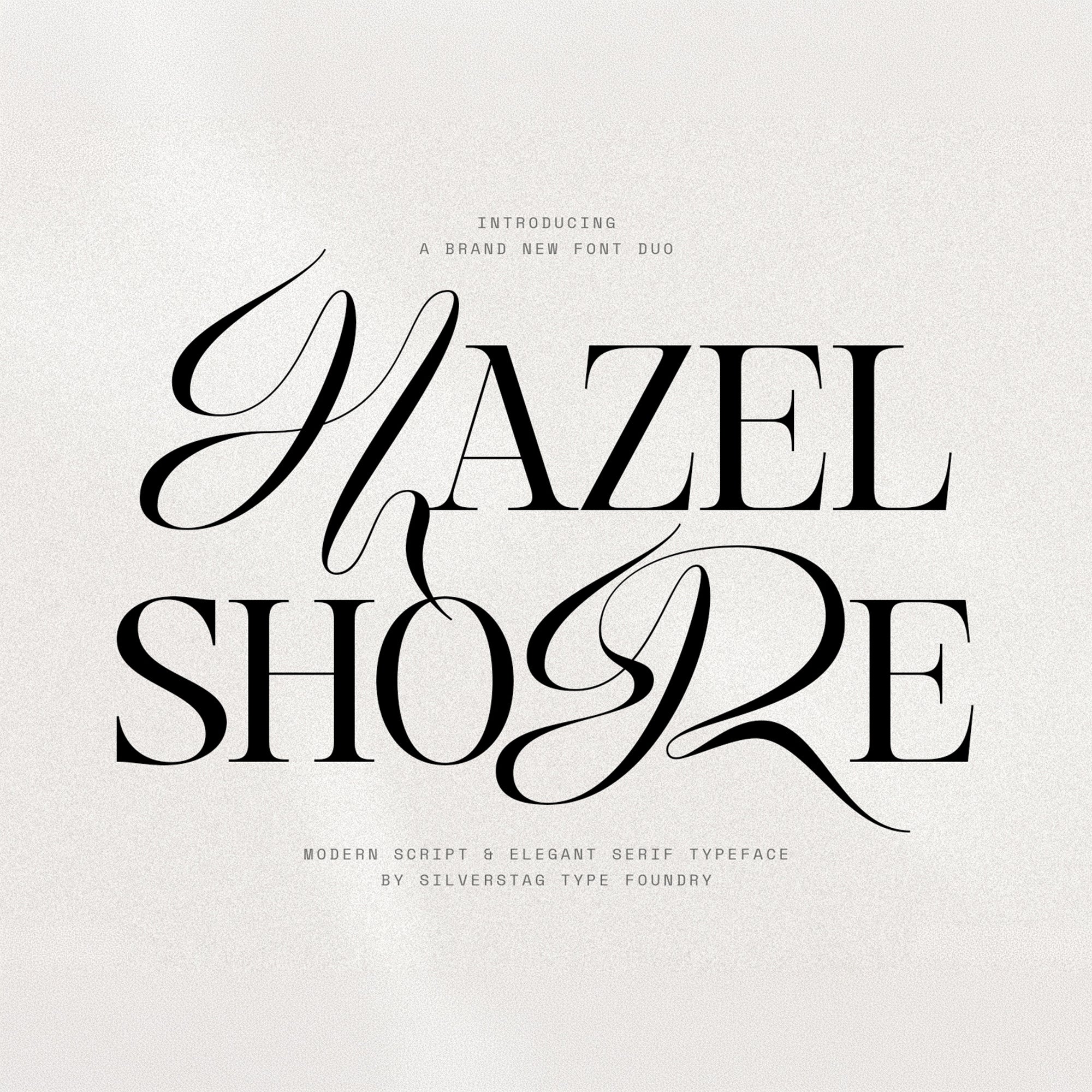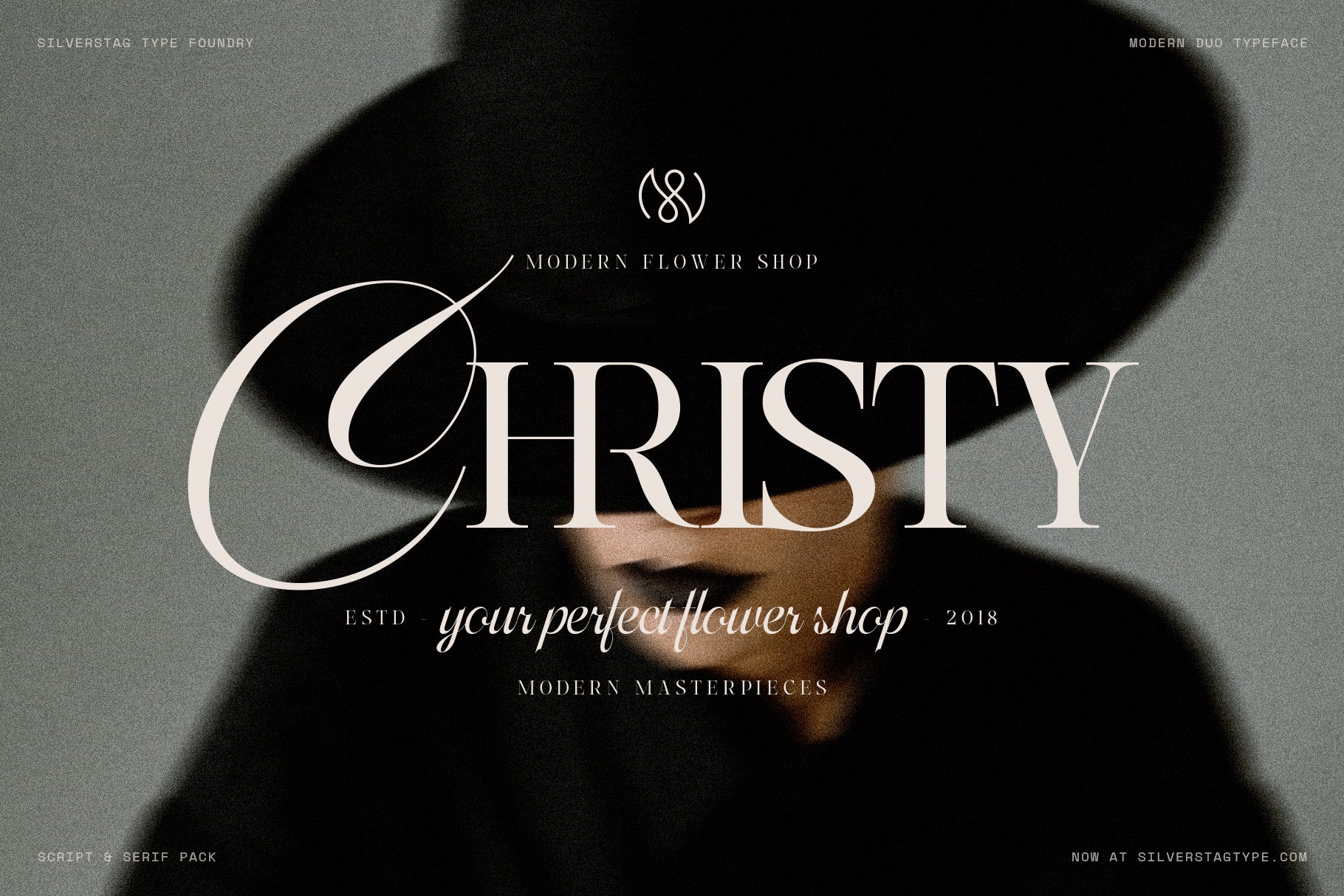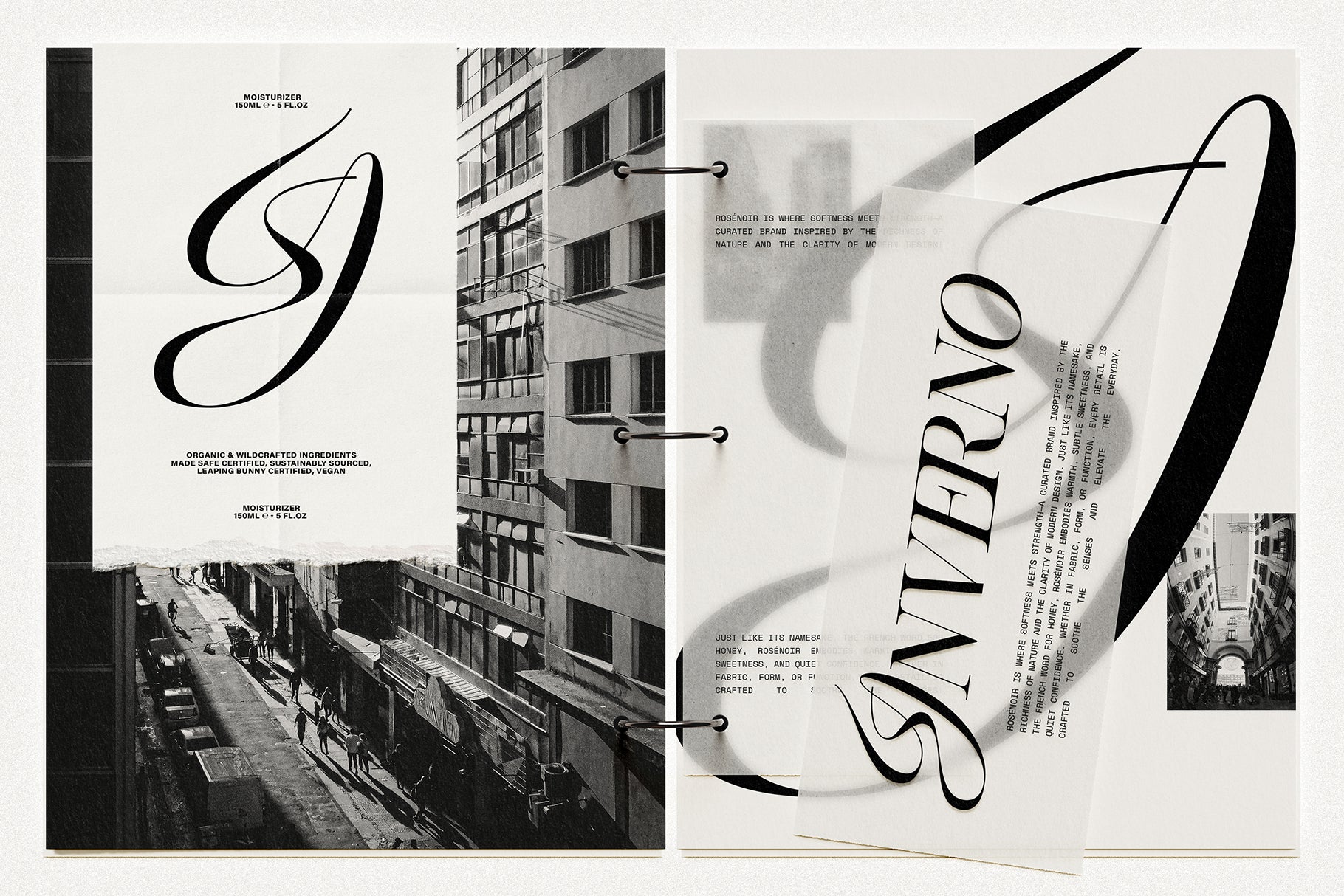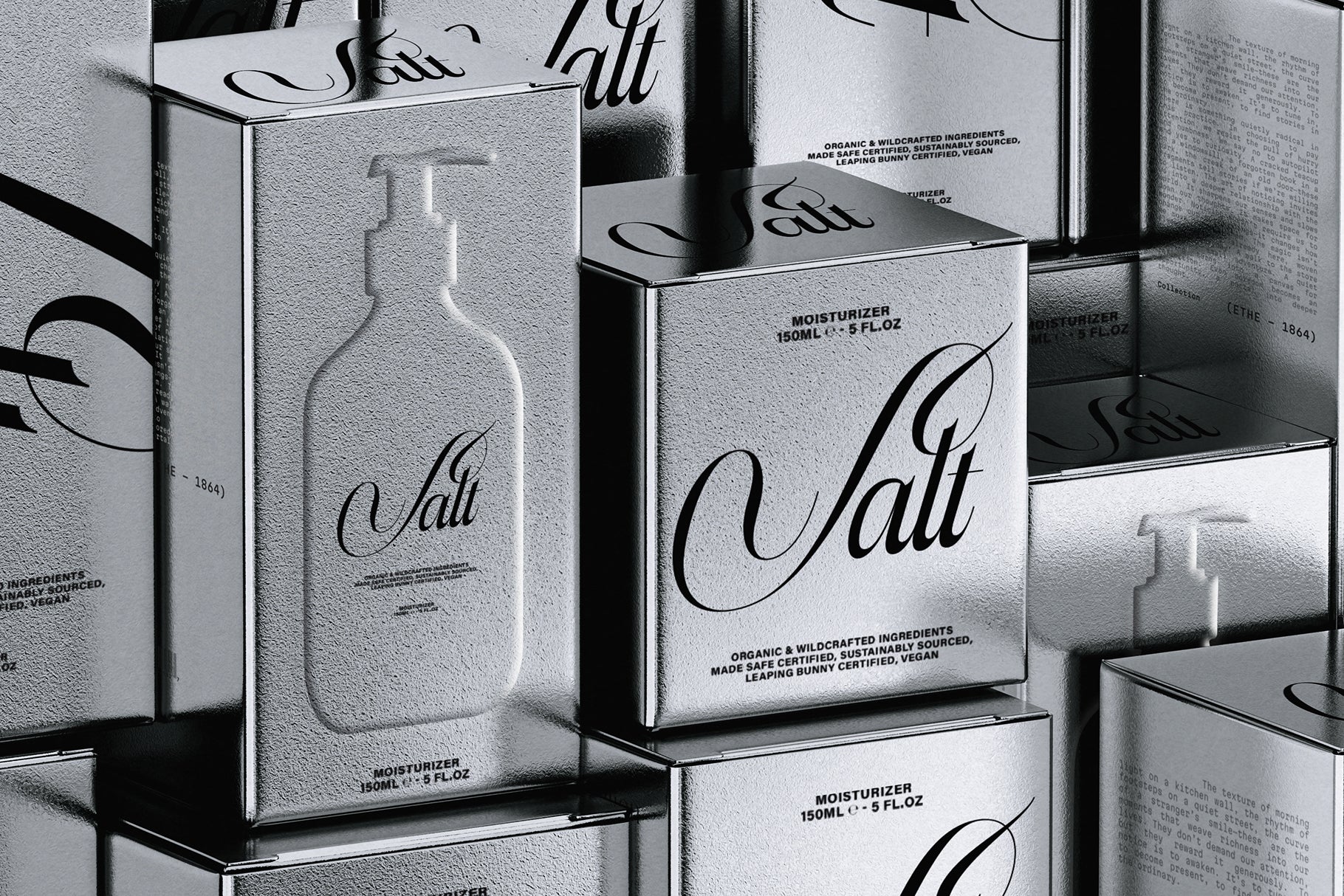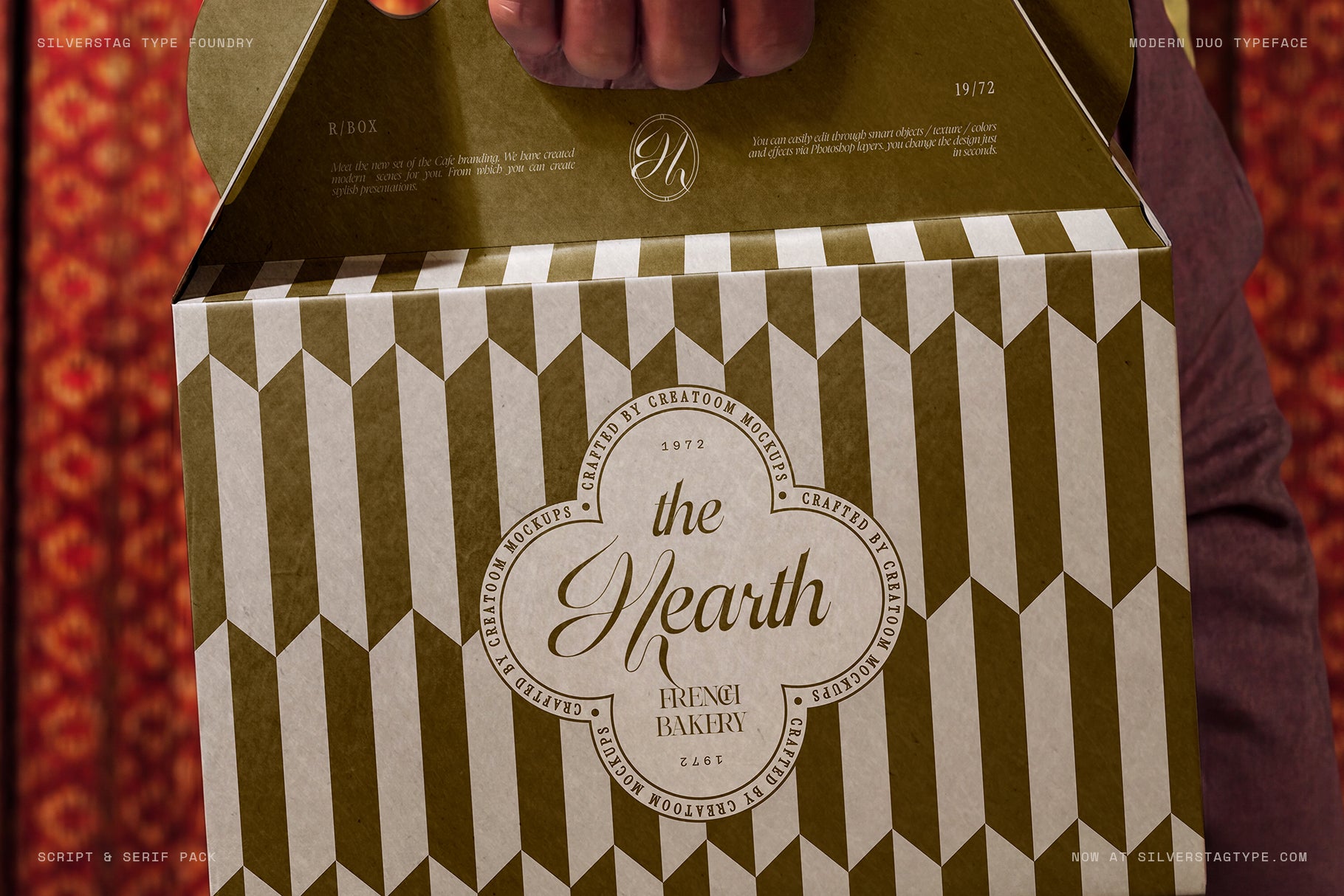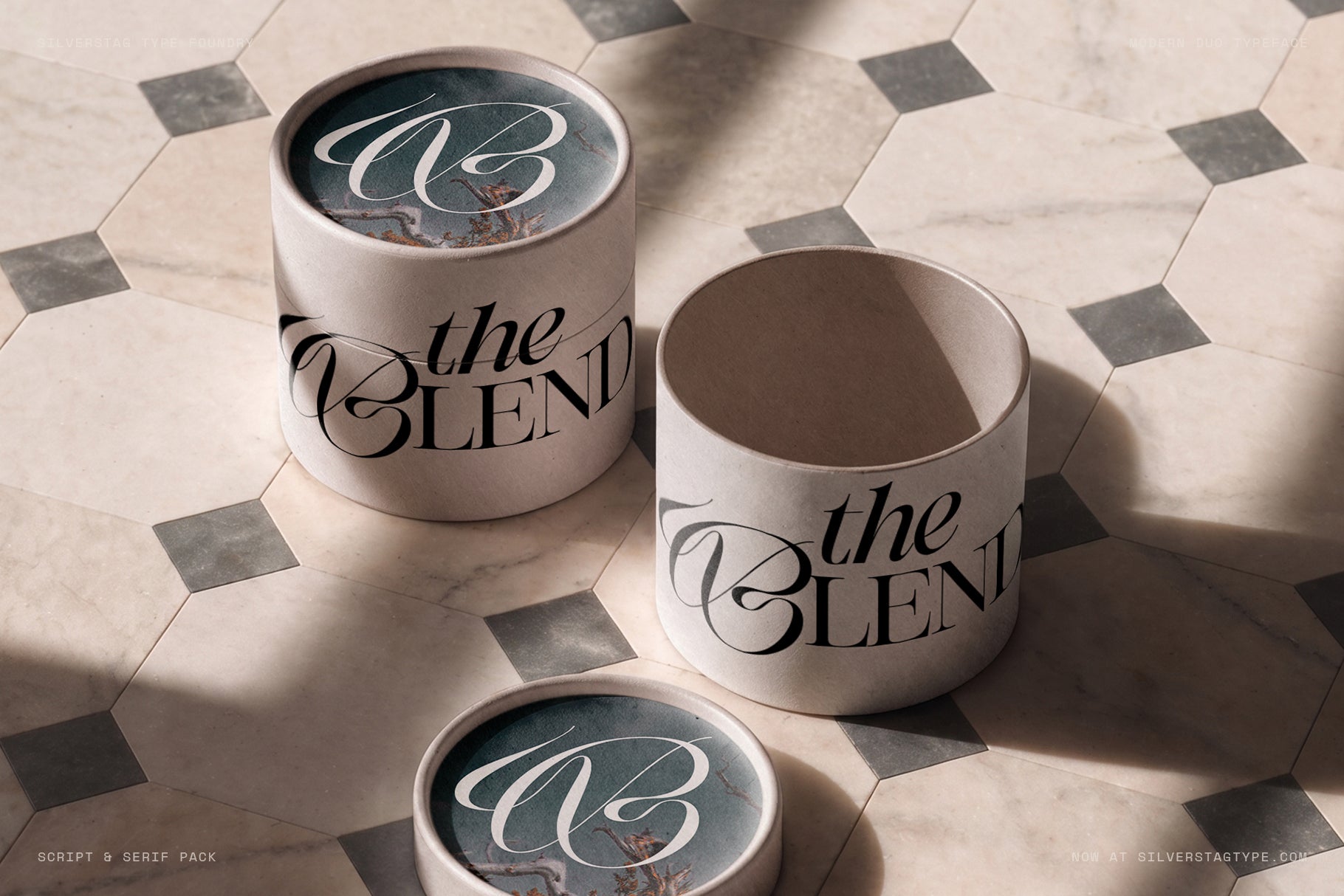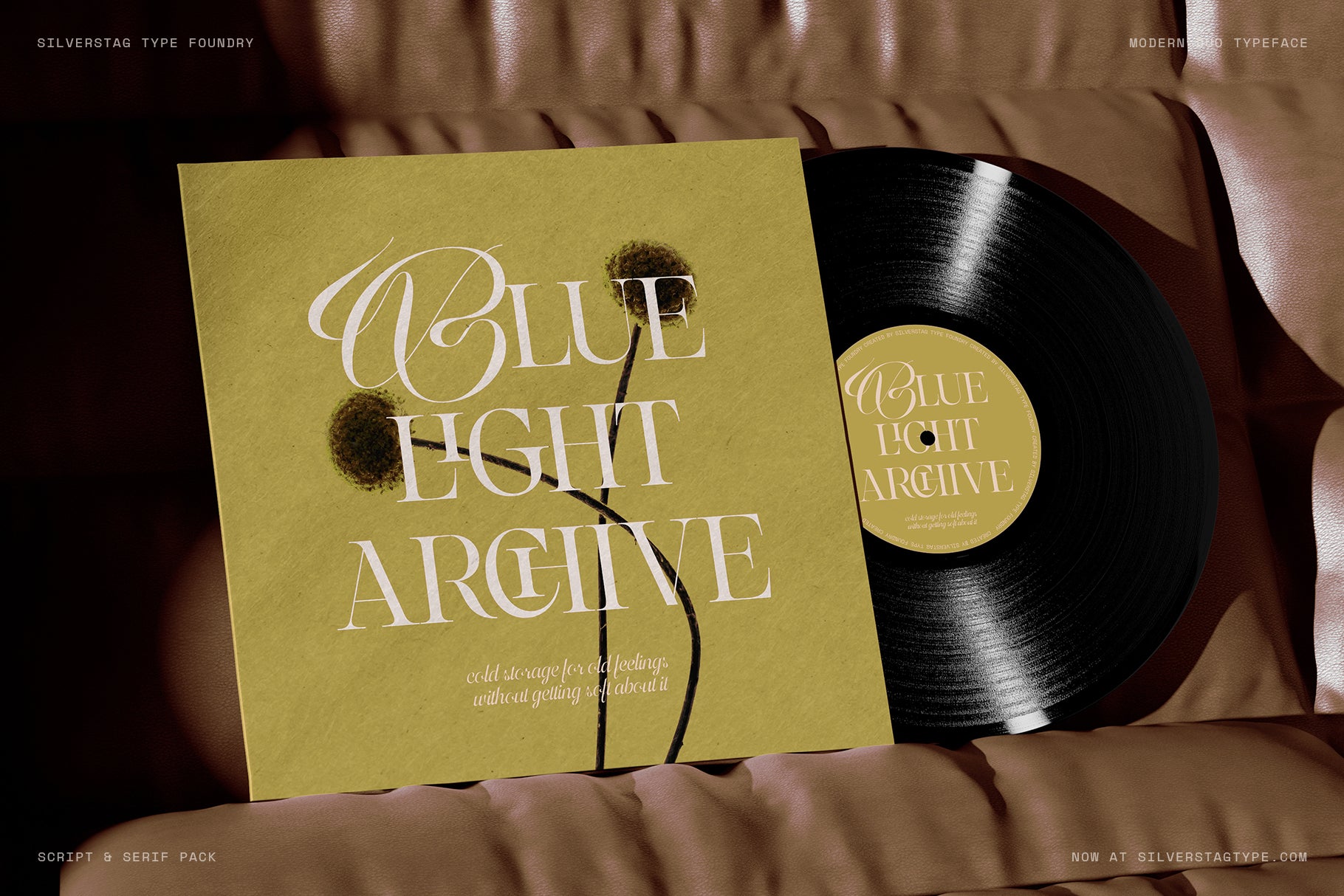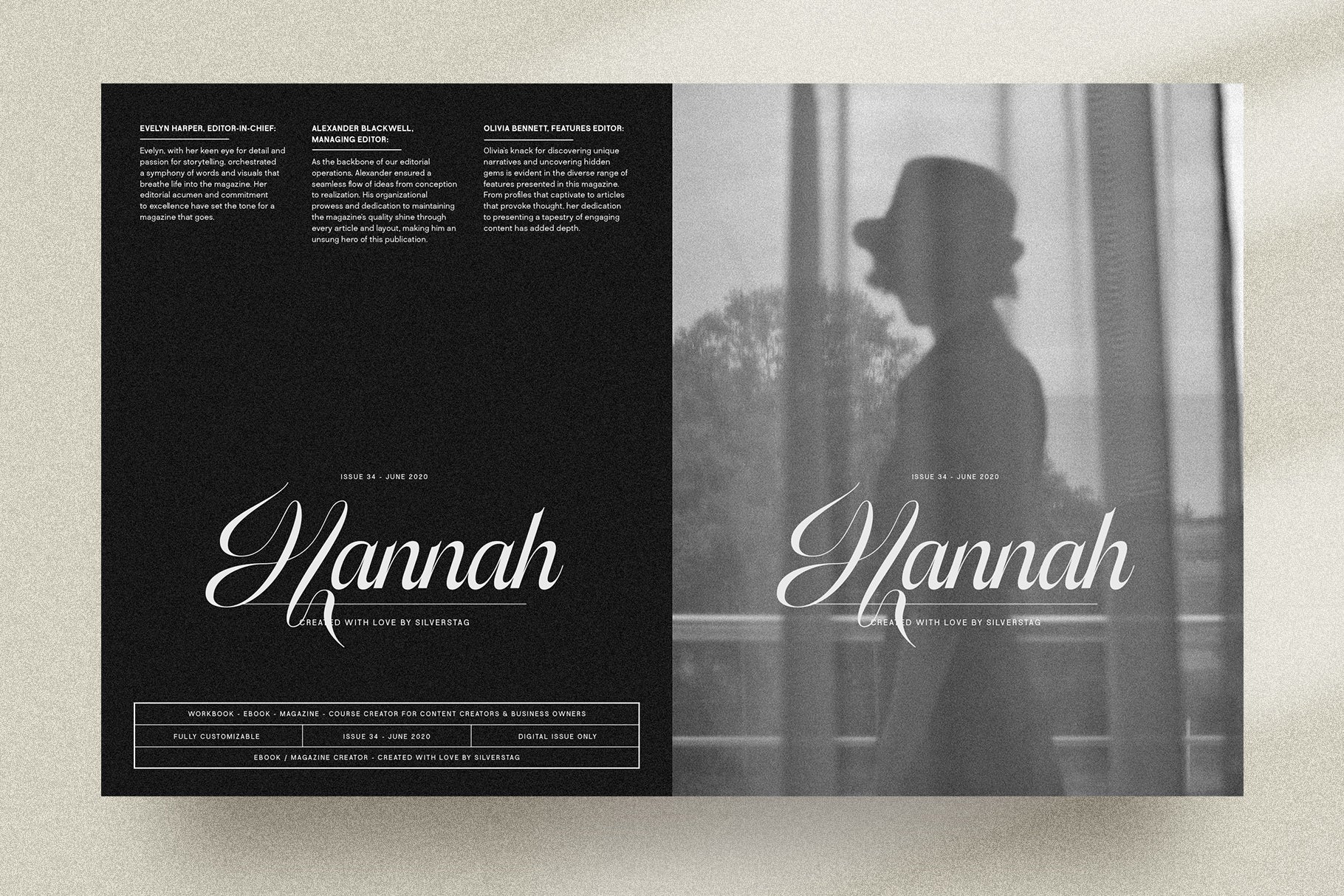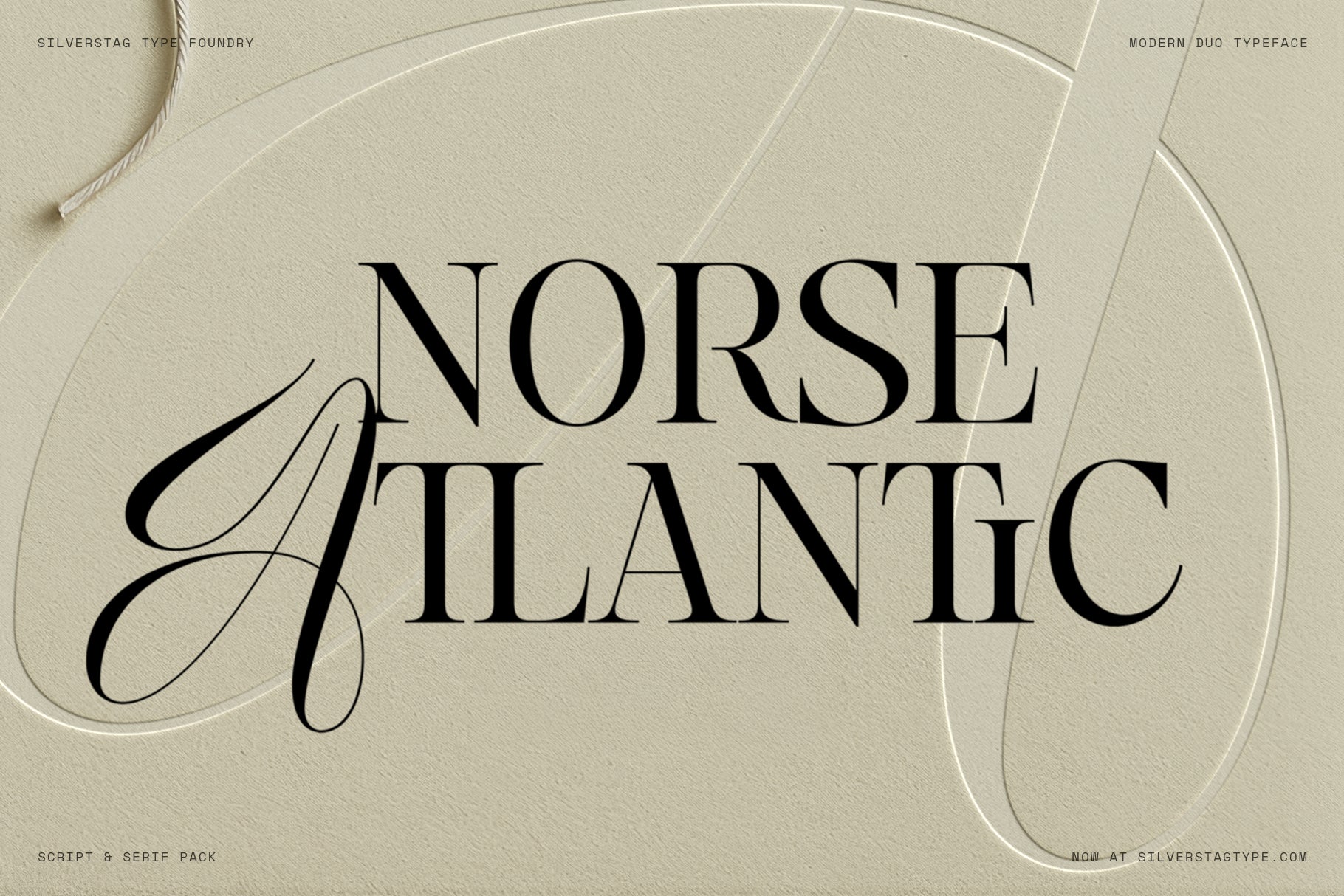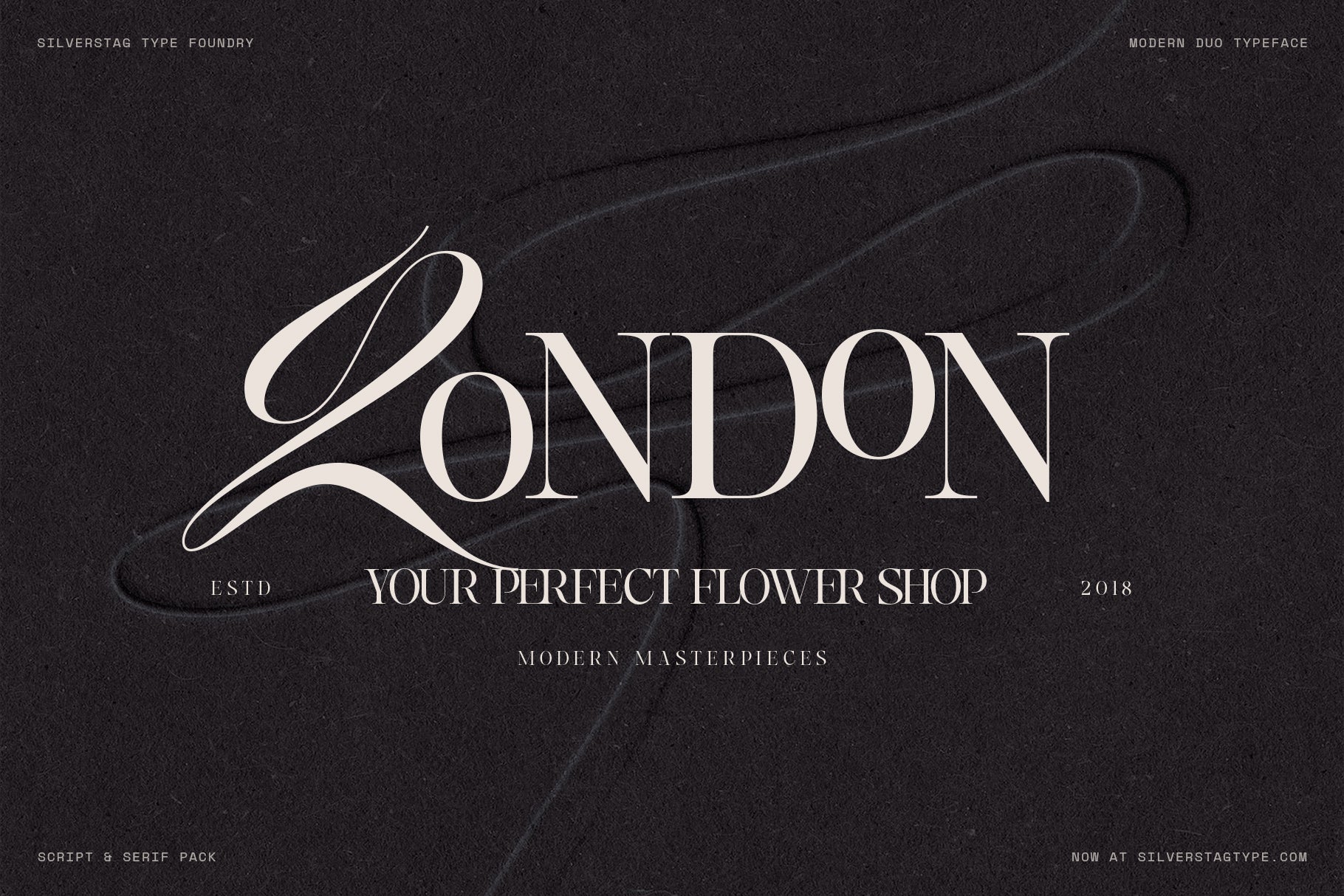
SLTF Hazel Shore - Serif & Script Font Duo
SLTF Hazel Shore is a font duo. A high contrast display serif with a matching true italic, and a flowing script drawn to sit inside it.
Set a word in the serif, swap one letter for its script counterpart, and the whole thing changes character. LONDON with a script L. CHRISTY with a script C. It works because both faces share the same x-height, cap height and proportions, drawn together rather than paired afterwards.
The serif carries 901 glyphs with 124 ligatures and three stylistic sets, plus old style and tabular figures, fractions, superscripts and subscripts. The italic has its own set of 111 ligatures. The script is the display partner, with long entry and exit strokes and contextual alternates that adjust the joins as you type.
Built for fashion and beauty branding, packaging, labels, editorial covers, stationery and logos.
SLTF Hazel Shore is a font duo consisting of a high contrast display serif with a matching true italic, and a script face designed to share the same x-height, cap height, and proportions. The serif includes 901 glyphs with 124 ligatures, three stylistic sets, old style and tabular figures, fractions, and sub/superscripts; the italic adds 111 ligatures, and the script includes contextual alternates that adjust letter joins.